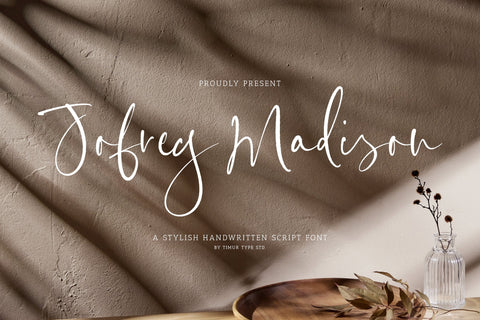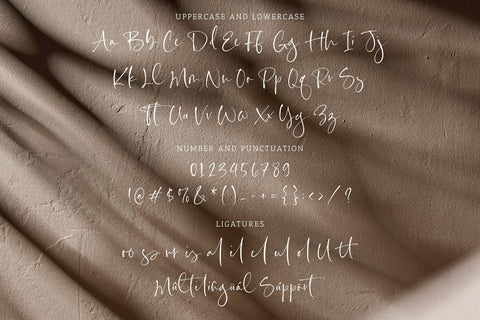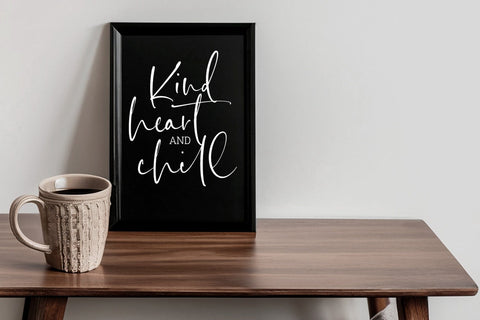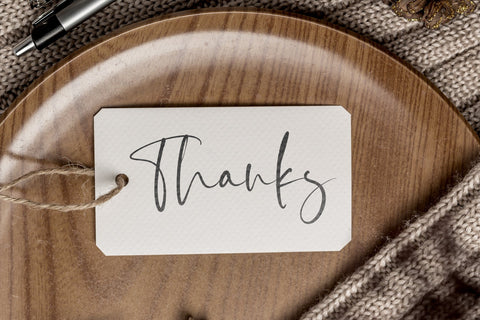
Jofrey Madison - Stylish Handwritten Script Font
Jofrey Madison is a Stylish Handwritten Script Font
This font is an exquisite handwritten script font that blends elegance with modernity. Its graceful strokes and flowing curves convey a sense of sophistication and charm, perfect for projects that demand a touch of personal flair. Ideal for invitations, branding, and editorial designs, Jofrey Madison stands out with its unique character and versatility, making every word a work of art.
Jofrey Madison Font also supports multilingualism